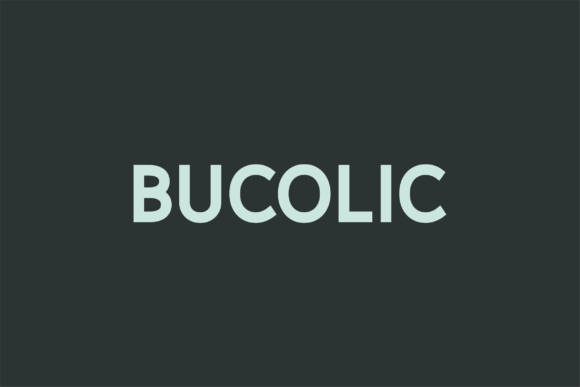
The Bucolic Font: A Modern, Classy Sans Serif for Creative Projects
I’ll never forget the struggle I faced while working on a wedding invitation project. My client wanted a font that was both elegant and modern, but I just couldn’t seem to find the perfect fit. That was until I stumbled upon the Bucolic font. It’s a versatile, modern, and classy sans serif font that’s perfect for logos, weddings, invitations, quotes, advertisements, print, magazines, and more. In this article, I’ll share my experience with Bucolic, its features, and how to make the most of it in your creative projects.
A Personal Review: What I Love About Bucolic
Here’s what I love about Bucolic:
- ✨ Clean and modern design: Bucolic’s sleek lines and curves make it perfect for projects that require a touch of sophistication.
- ✅ Highly versatile: This font can be used for a wide range of projects, from logos and invitations to quotes and advertisements.
- 💡 Excellent legibility: Bucolic’s clear and concise design makes it easy to read, even at small font sizes.
- 🎨 OpenType features: Bucolic comes with a range of OpenType features, including stylistic alternates, ligatures, and more.
While Bucolic is an excellent font, there are a few quirks to be aware of:
- 🤔 Limited italic options: Bucolic’s italic options are limited, which may not be ideal for projects that require a lot of emphasis on italics.
- ⚠️ Not suitable for body text: While Bucolic is great for headings and titles, it may not be the best choice for body text due to its modern and sleek design.
The Backstory of Bucolic
Bucolic was designed by a team of typographers who wanted to create a modern and classy sans serif font that would be perfect for creative projects. Inspired by the beauty of rural landscapes, Bucolic is a font that combines elegance and sophistication with a touch of playfulness.
| Author | A Christie |
| What is Bucolic font? | Bucolic is a modern, classy sans serif font perfect for logos, weddings, invitations, quotes, advertisements, print, magazines, and more. |
| Is Bucolic suitable for body text? | No, Bucolic is not suitable for body text due to its modern and sleek design. It’s best used for headings and titles. |
| Does Bucolic come with OpenType features? | Yes, Bucolic comes with a range of OpenType features, including stylistic alternates, ligatures, and more. |